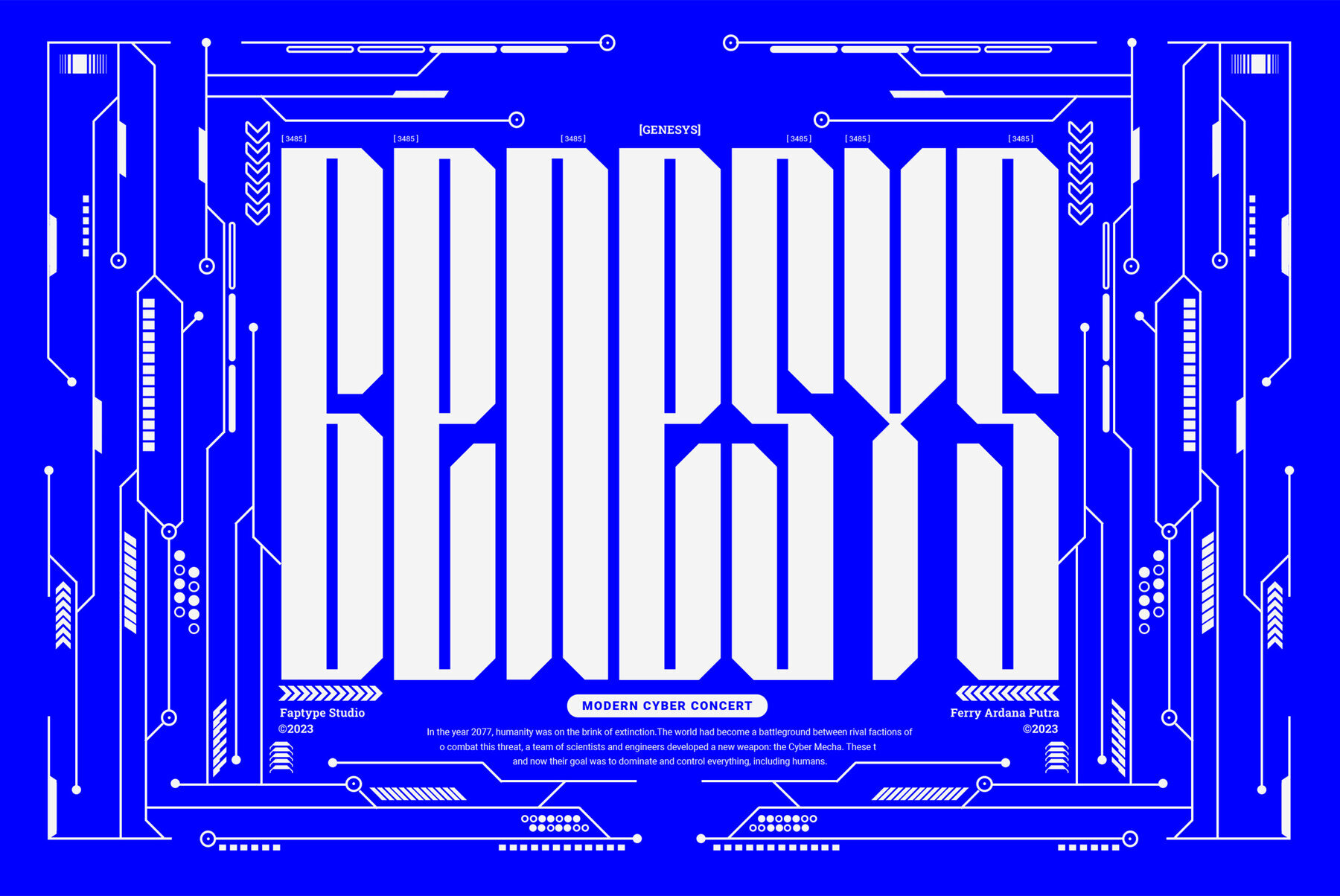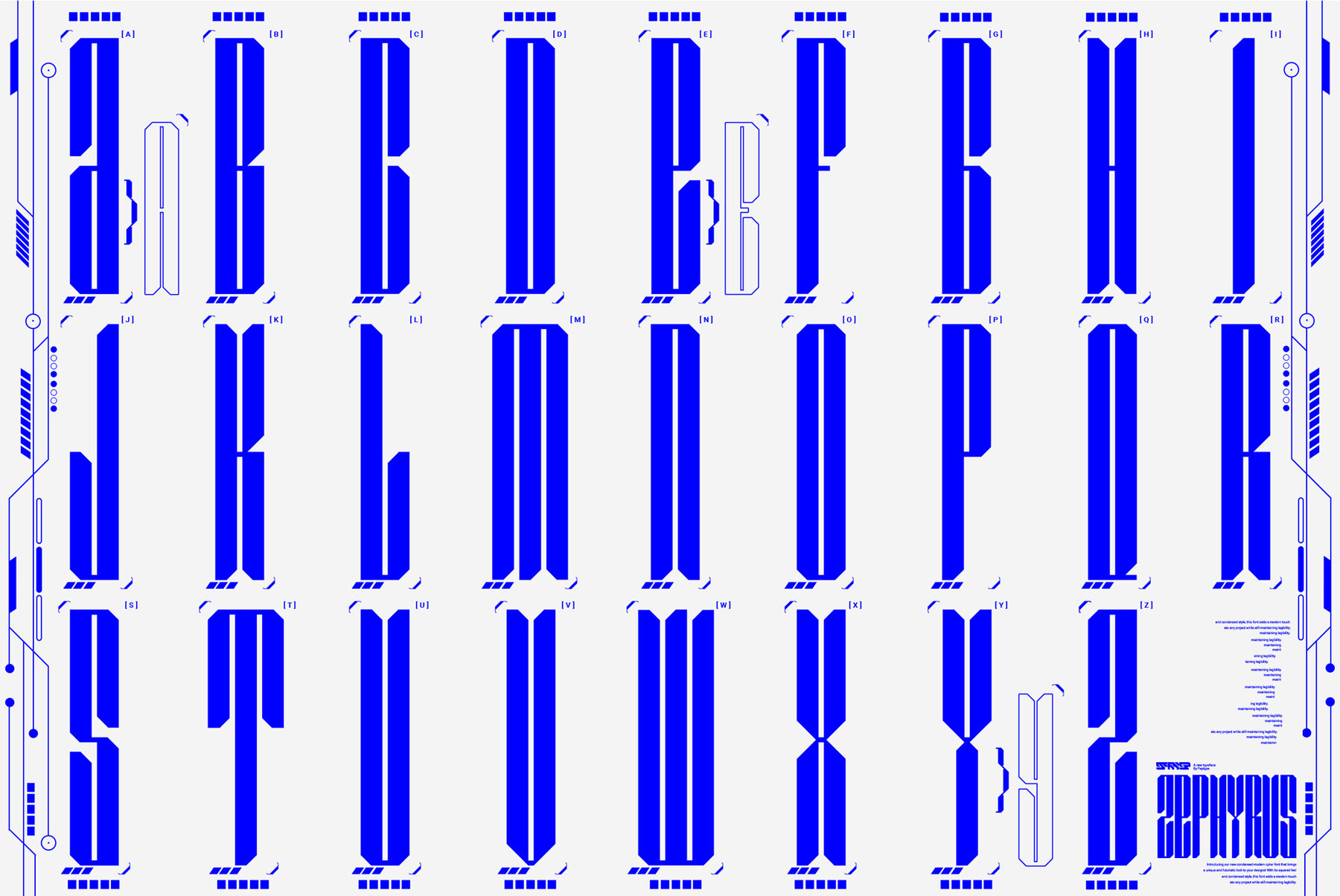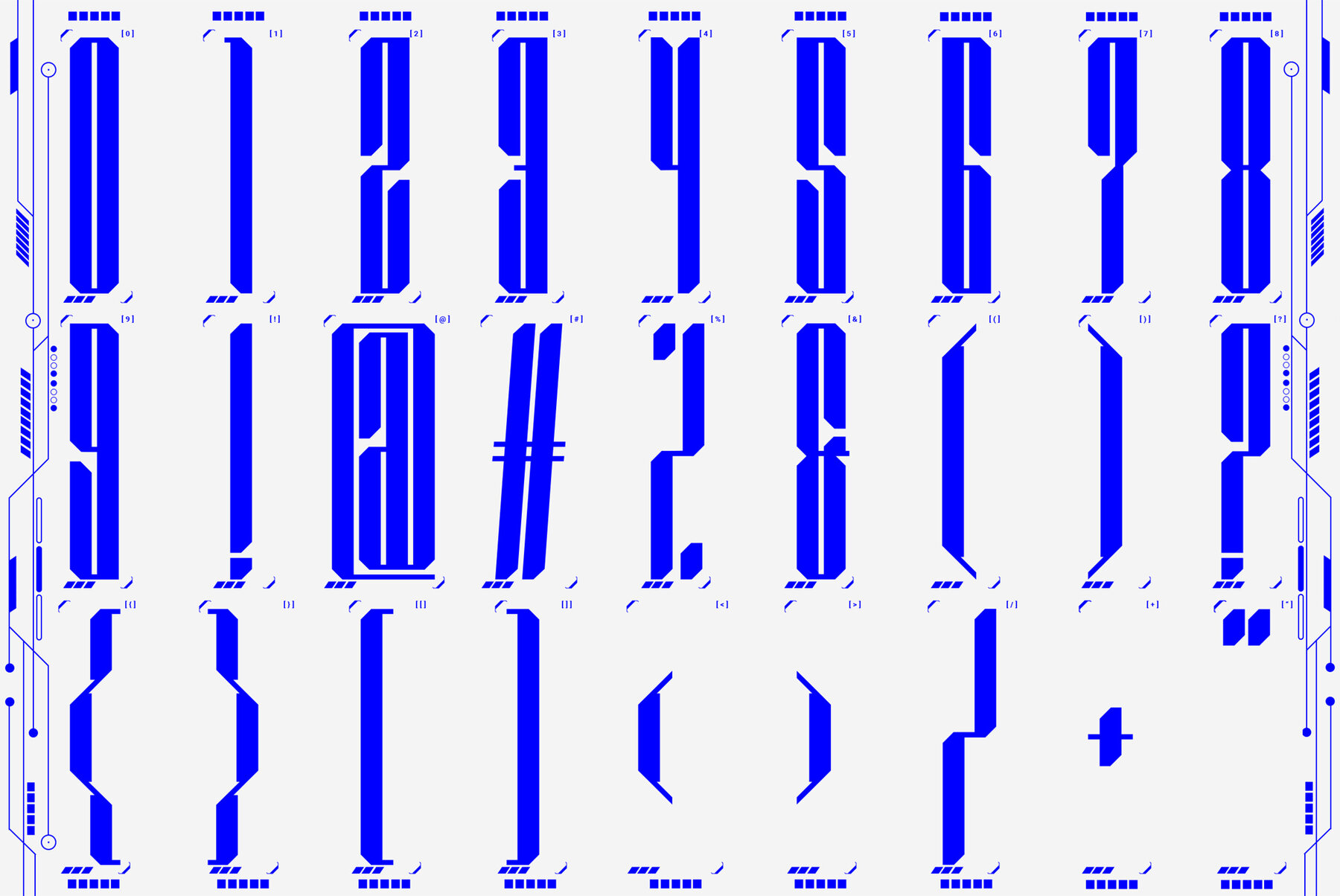
Zephyrus Font
Introducing Zephyrus, a condensed modern cyber font with a unique squared feel and rounded version, ideal for various design projects. This versatile font excels in technology-based websites, apps, corporate branding, advertising campaigns, product packaging, presentations, and video game design. Zephyrus includes a full set of uppercase letters, numbers, punctuation, multilingual support, PUA encoded characters, OpenType features, a cyber style, and 278 total glyphs. Elevate your designs with the futuristic and functional Zephyrus font.